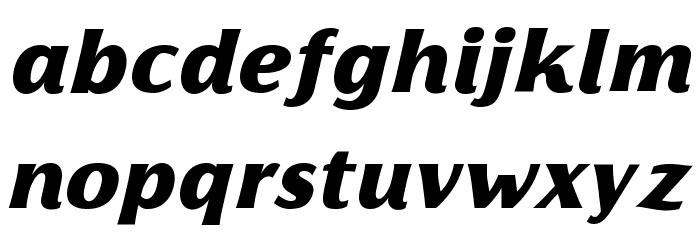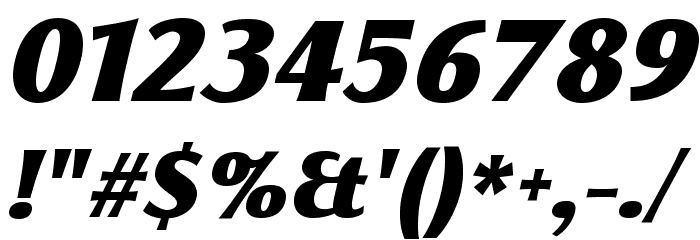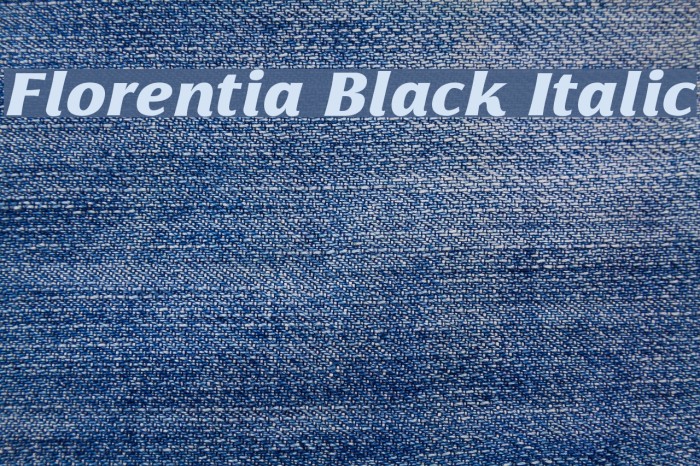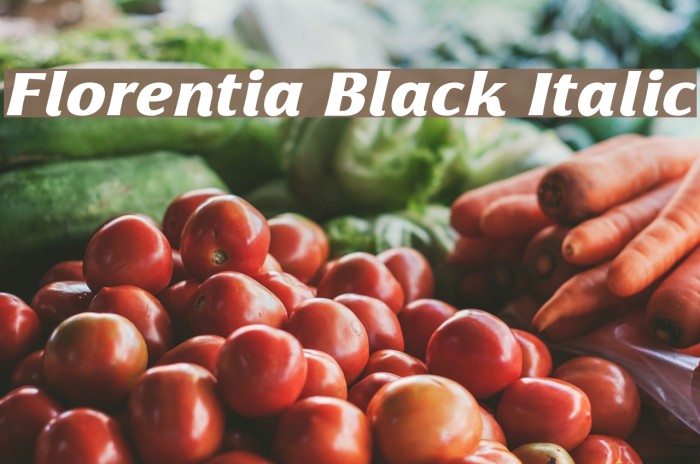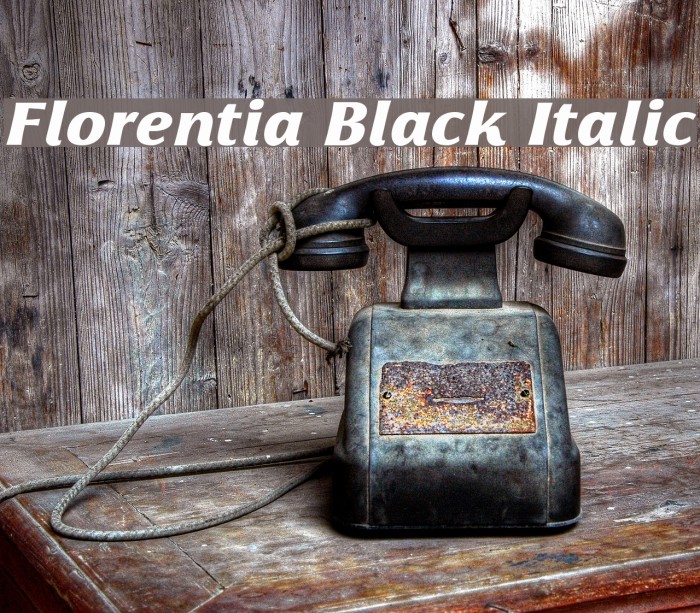
Florentia Black Italic Font
This font exhibits a bold and dynamic presence with its italicized form, creating a sense of movement and emphasis. The characters are robust and well-defined, with a slight slant that adds a touch of elegance and sophistication. The strokes are thick and consistent, providing a strong visual impact. The uppercase letters are commanding and assertive, while the lowercase letters maintain a harmonious flow. The numerals are clear and prominent, ensuring readability. Special characters are crafted with attention to detail, complementing the overall aesthetic. This font is suitable for projects that require a bold statement and a modern flair.
A bold, italicized font with strong, dynamic strokes and a modern aesthetic.
- Proposed Projects: Ideal for branding, headlines, advertising, and any design that requires a bold, modern touch.
- Use Case: Headlines, Logos, Advertising